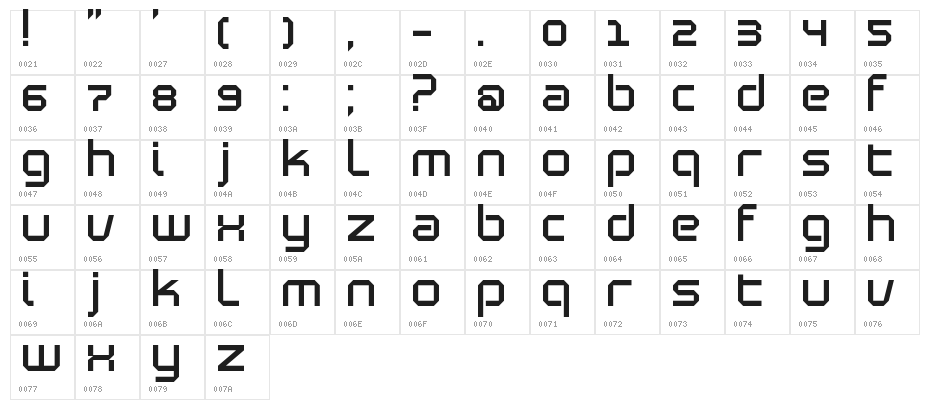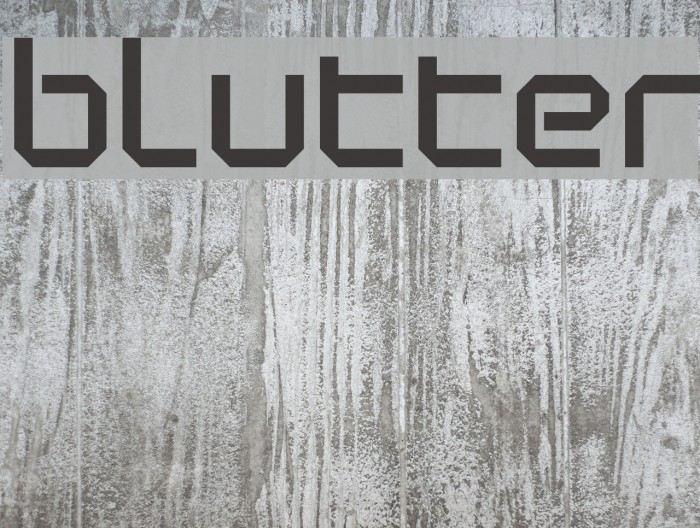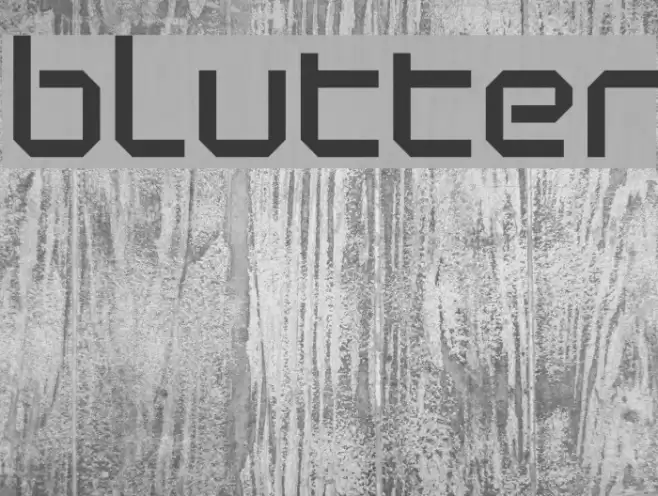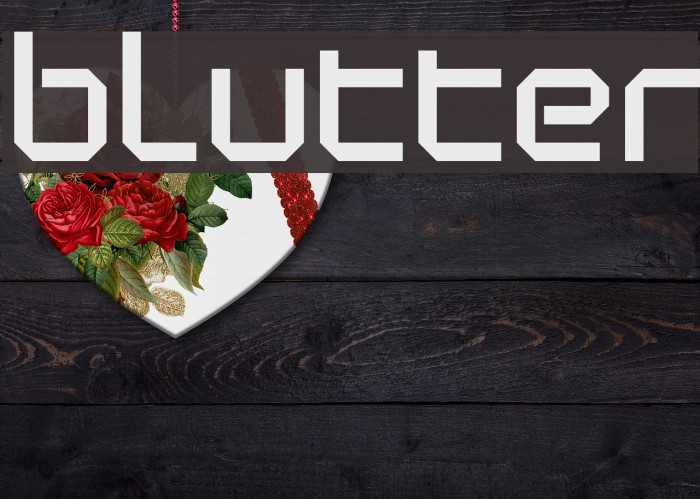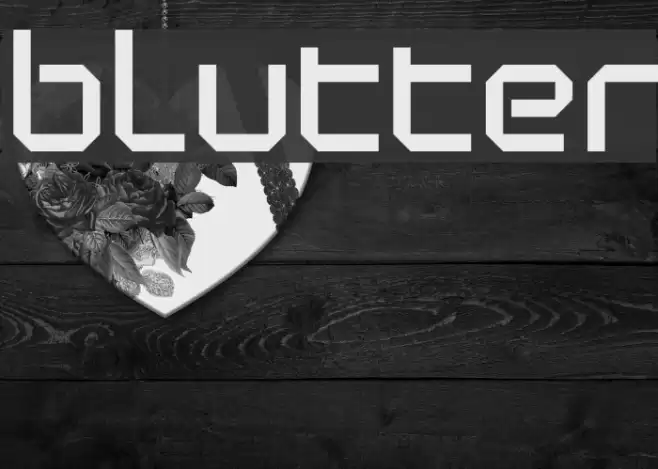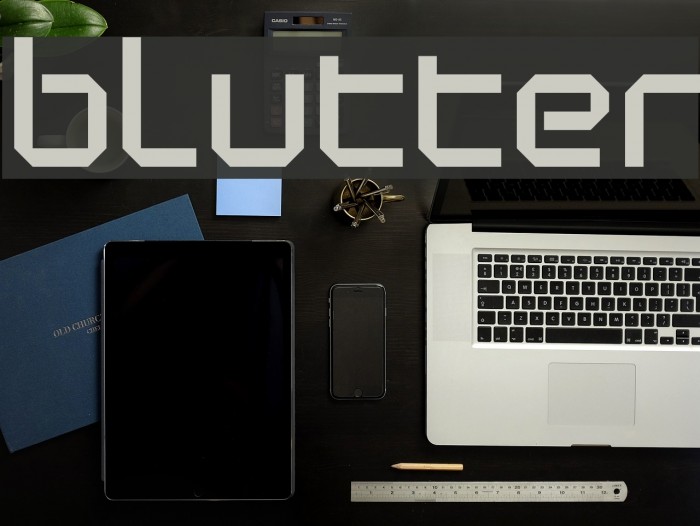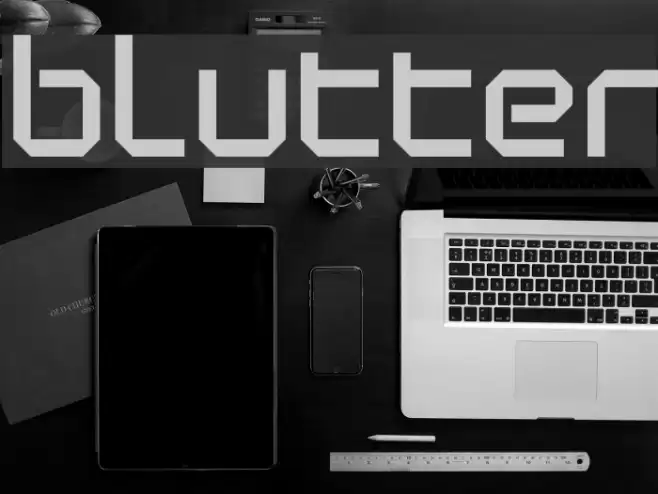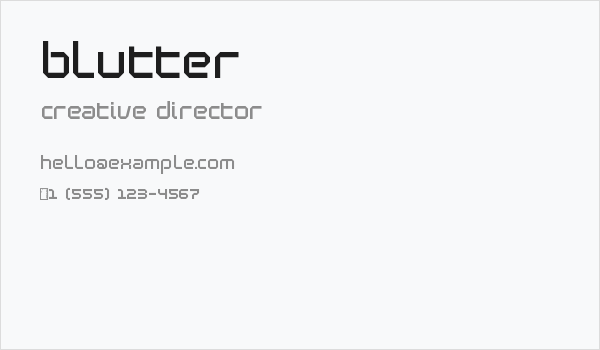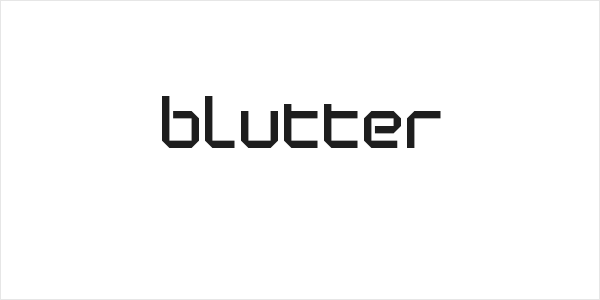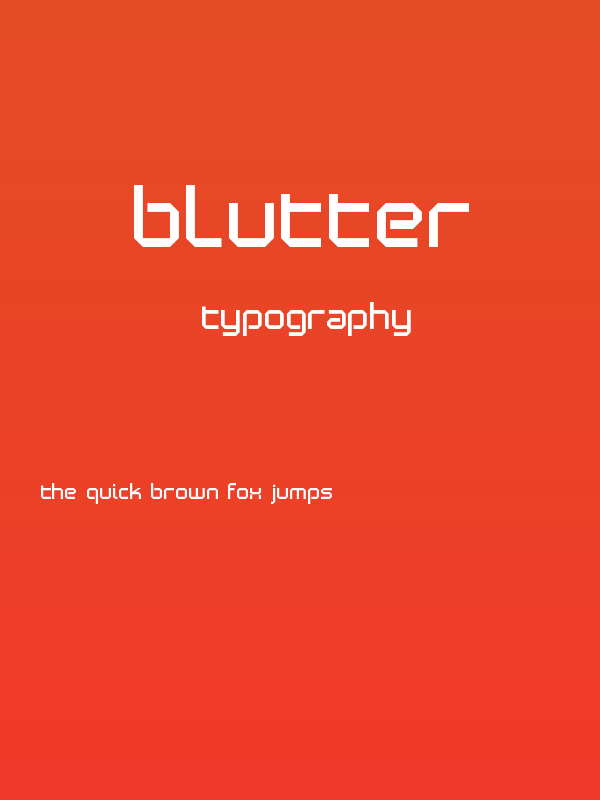
Blutter Font
Blutter Description
This font features a geometric and angular design, characterized by its bold and blocky letterforms. The characters are constructed with sharp edges and straight lines, giving it a futuristic and digital appearance. The uniformity in stroke width across all characters contributes to a cohesive and structured look. This font is highly legible and maintains clarity even at smaller sizes, making it versatile for various applications. The numbers and special characters are designed to match the angular style of the alphabet, ensuring consistency throughout. Its distinct style makes it suitable for modern and tech-oriented projects.
Proposed ProjectsIdeal for tech branding, digital interfaces, video game graphics, and futuristic-themed designs.